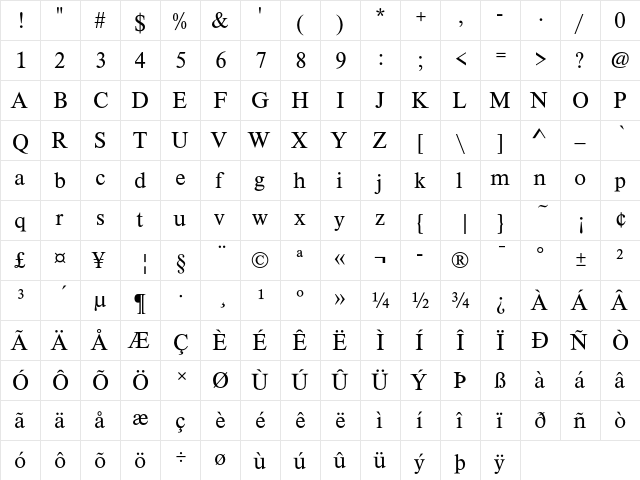
Timeless Light
Design Context for Timeless Typeface
Timeless is a composed and adaptable typeface that performs quietly and consistently across a wide range of design contexts. The delicate stroke weight brings airiness and refinement to layouts.